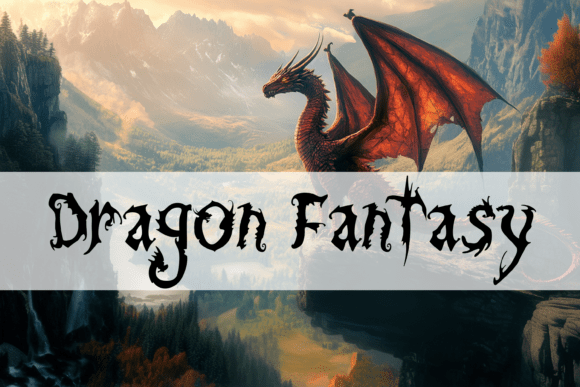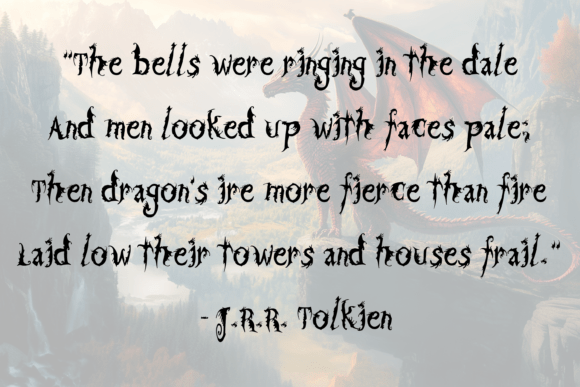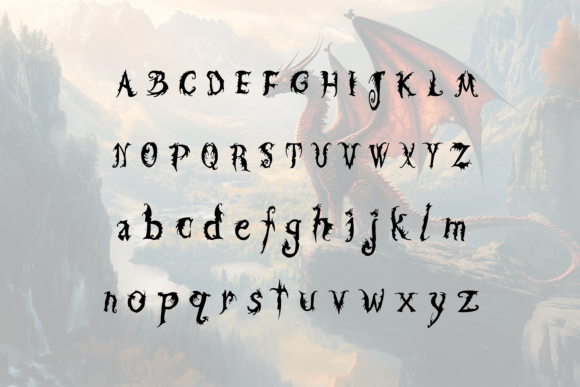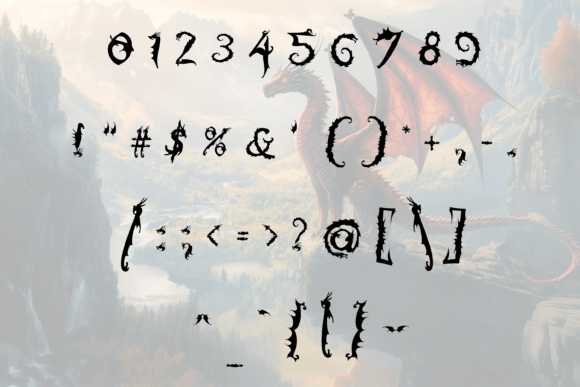
Dargon Fantasy Font
About the Dargon Fantasy Font
Crafted with precision, the Dargon Fantasy Font is ready to bring your ideas to life. Unleash the power of legends with Dragon Fantasy, a bold and intricate font inspired by mythical creatures and epic tales. With its jagged, flame-like edges and medieval styling, this typeface is perfect for fantasy book titles, game logos, magical branding, RPG designs, mystical posters, and enchanting invitations. Whether you’re crafting a heroic adventure or an ancient prophecy, Dragon Fantasy adds the perfect touch of mystery and grandeur to your designs.
Dragon Fantasy excels in headlines, logos, and short, impactful text settings where its bold, intricate details shine. It’s ideal for projects emphasizing fantasy, mythology, or gaming themes. Avoid using it for body text or long paragraphs; its complexity can hinder readability in extended use.
The font’s core personality is bold and dramatic, leaning towards a serious and slightly aggressive aesthetic. It projects power and mystery. Pair it with a clean sans-serif like Montserrat for contrast, or a classic serif like Garamond for a more refined, vintage feel. A simple, geometric sans-serif like Futura would also provide a strong counterpoint.
For a softer contrast, consider pairing it with a slightly more whimsical script font, but ensure legibility remains a priority. The chosen pairing should depend on the overall tone of the design; a bold pairing emphasizes the font’s strength, while a more delicate pairing might highlight its mysterious aspects.
Dargon Fantasy Font Usage Examples
Dargon Fantasy Font Example